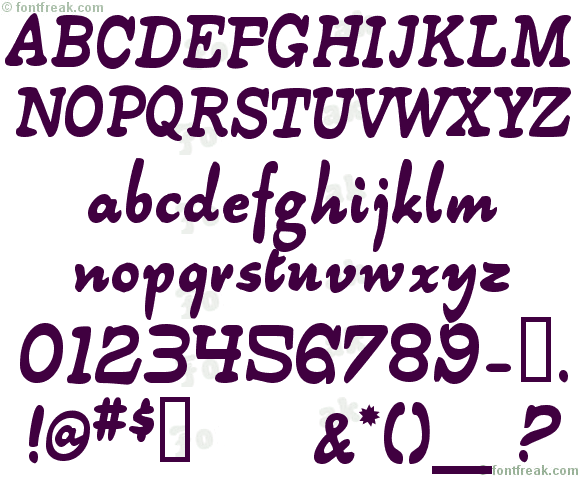
Littlebits
The Littlebits font by Dinctype! is a charming display typeface that captures attention with its playful and whimsical design. This script-style font features a unique combination of flowing curves and slightly exaggerated strokes, giving it a lively personality. The stroke weight varies throughout the characters, creating a delightful contrast that enhances its visual appeal. With its generous spacing, Littlebits ensures readability while maintaining a carefree aesthetic, making it perfect for a variety of applications.
Littlebits is ideal for wedding invitations, where its elegant yet fun style can set the tone for a joyous occasion. It also works wonderfully on children’s party invitations, adding a touch of whimsy that resonates with young audiences. For small business owners, using Littlebits on restaurant menus can create an inviting atmosphere, encouraging patrons to explore the offerings. Additionally, it serves as an excellent choice for creative projects like greeting cards or playful branding materials, allowing content creators to infuse their work with a sense of warmth and friendliness.
What sets the Littlebits font apart is its distinctive character and versatility. It can bring a sense of joy and creativity to any design, making it a standout choice for anyone looking to make a memorable impression. With the Littlebits font free download available, you can easily incorporate this delightful typeface into your next project and let your creativity shine.